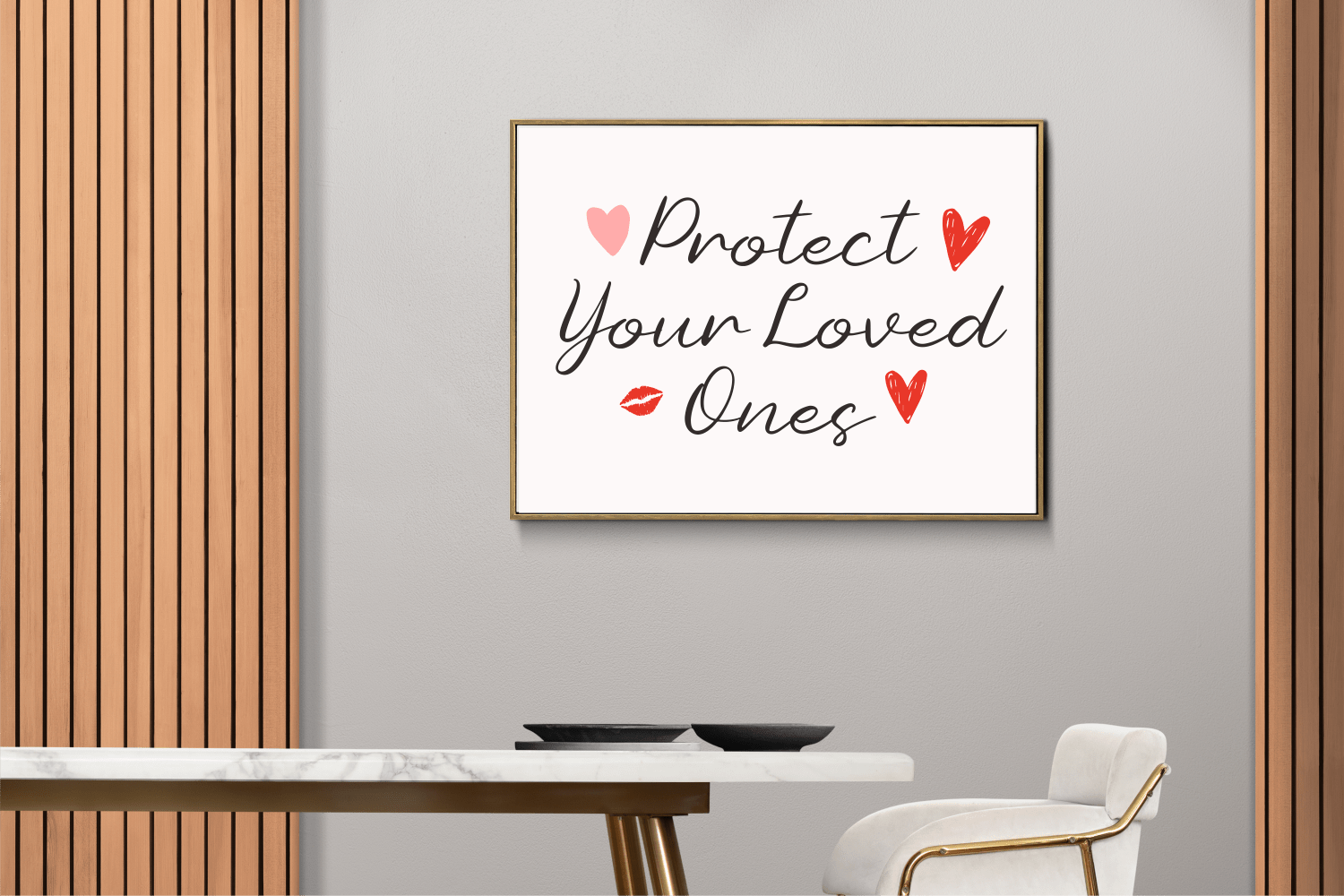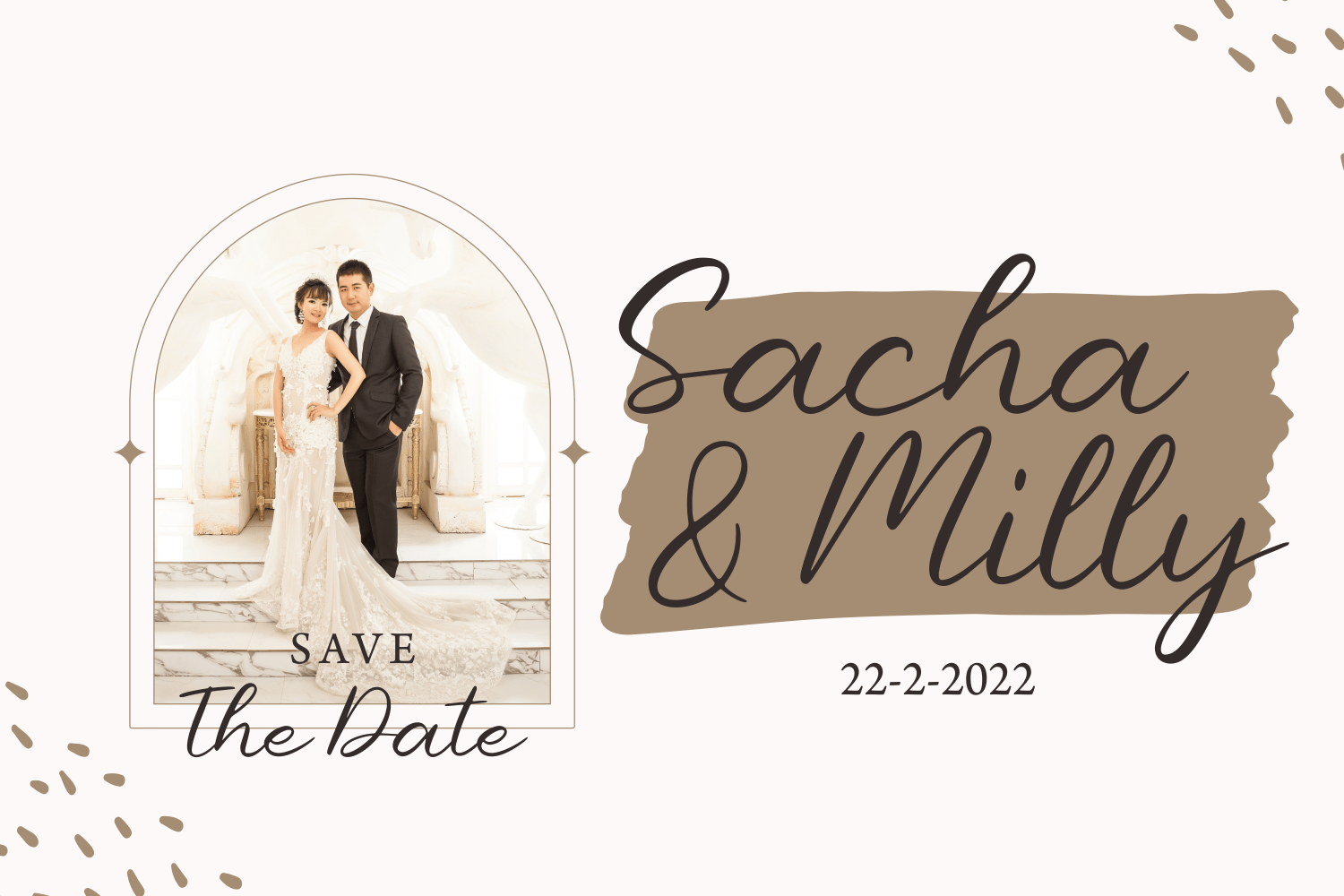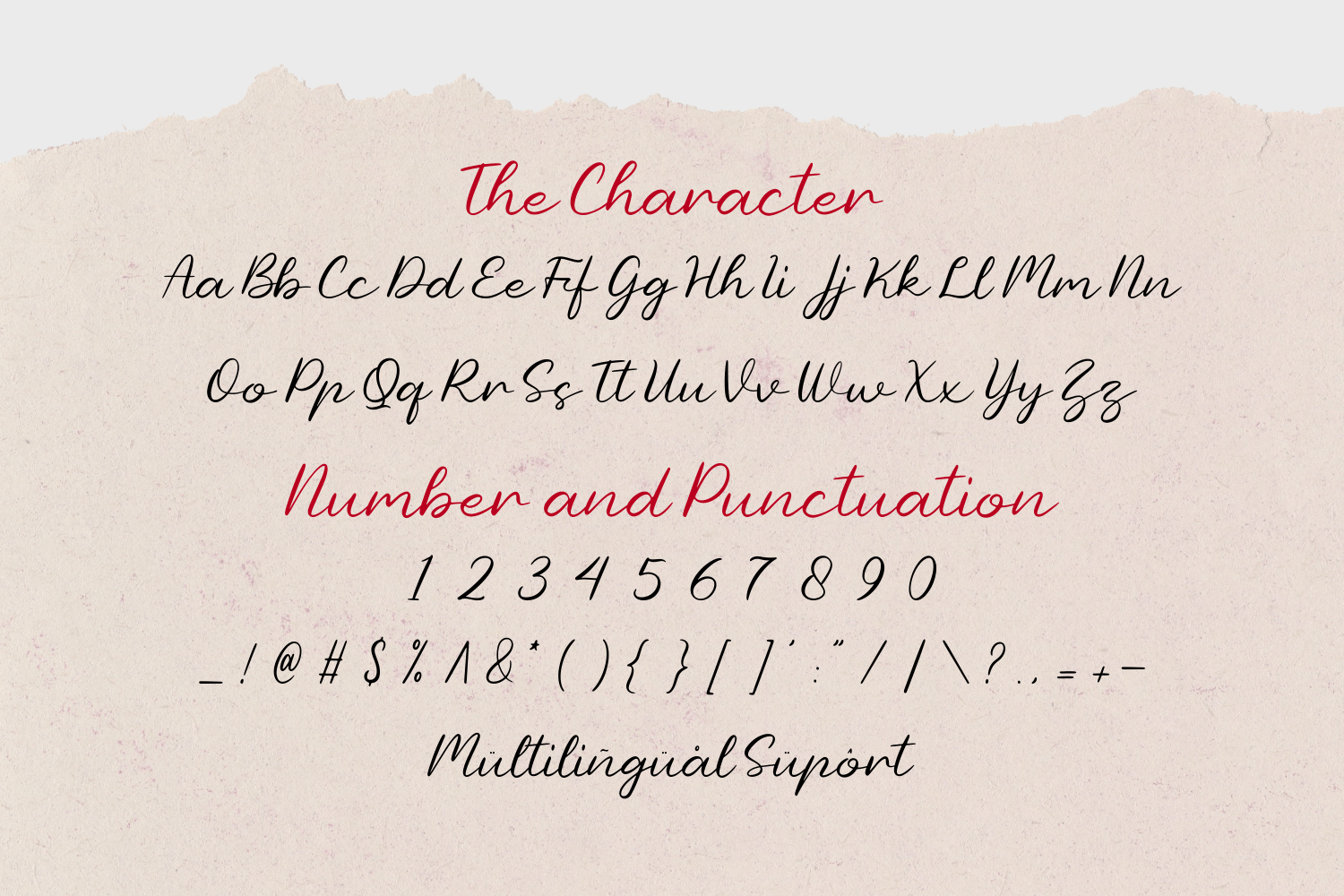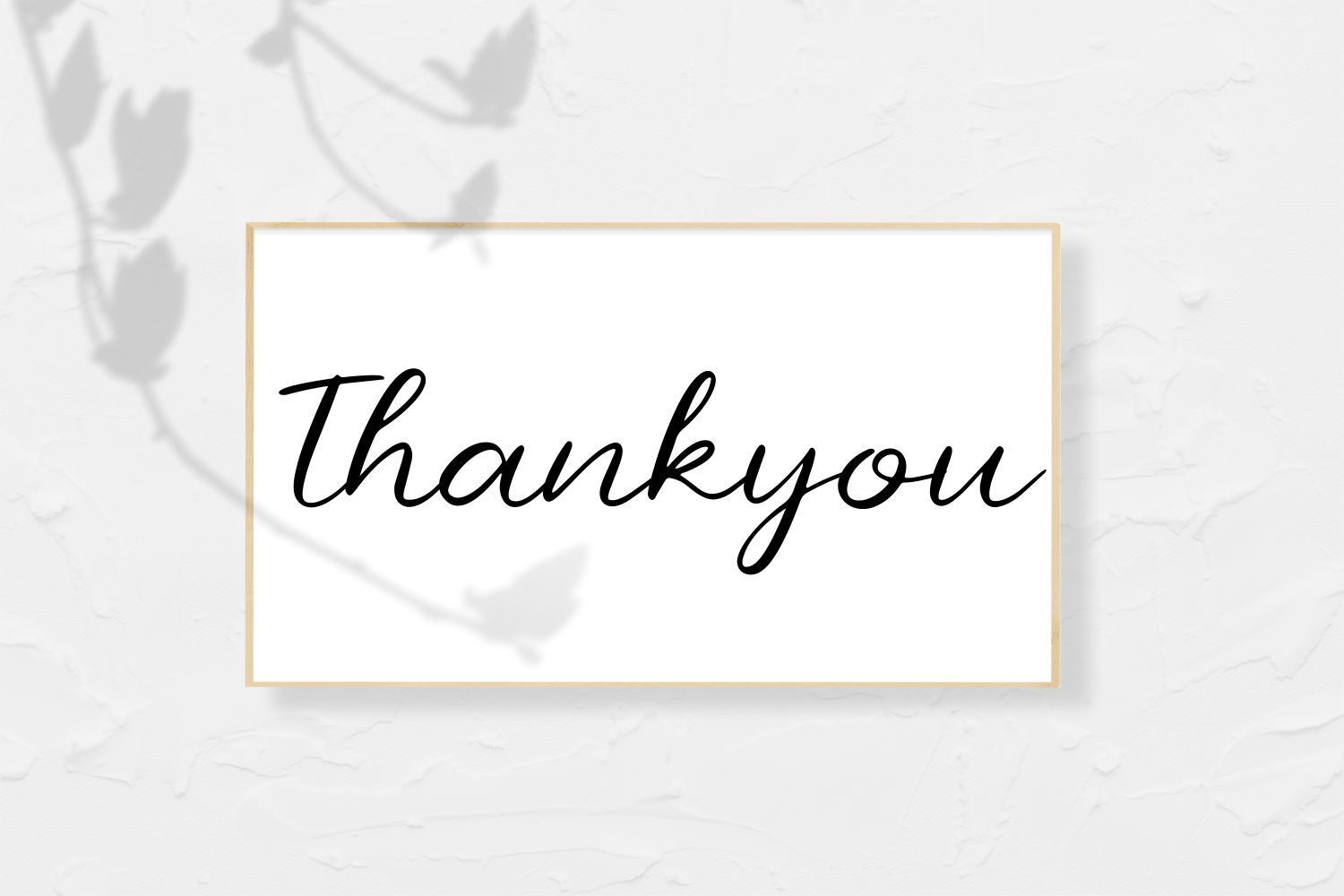
Melodi Cinta Font
Melodi Cinta Script Font is a delicate, free-flowing handwritten font. You can use it for various projects, such as blog posts, logos, branding, ads, invitations, greeting cards, planners, photo albums, decorations, and much more. Add it to any of your designs, and enjoy the results!